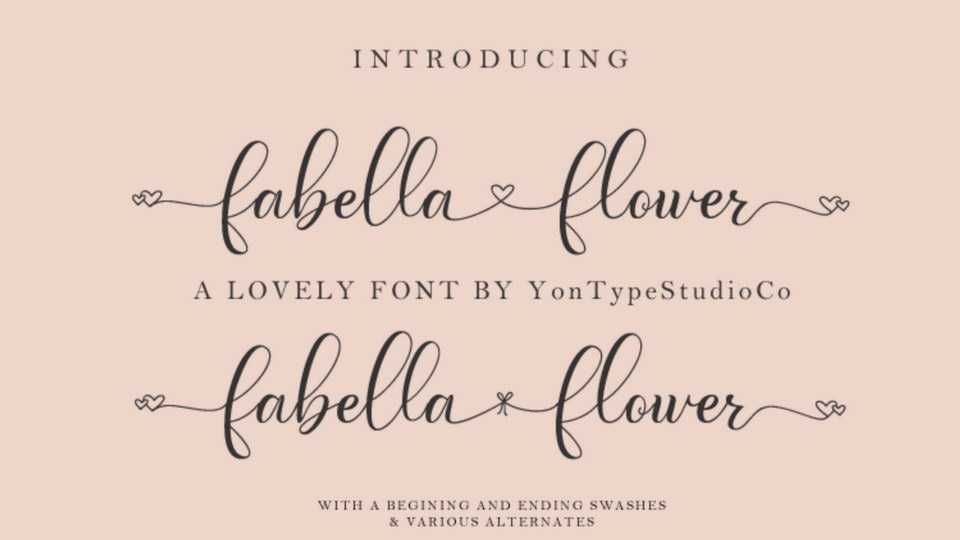
Fabella Flower Script Font › Fontesk – Download Grátis
Download Fabella Flower font, a gorgeous modern calligraphy script with lovely swashes. Fabella Flower is perfect for branding, wedding invitations, Valentine’s day and any other romantic project.